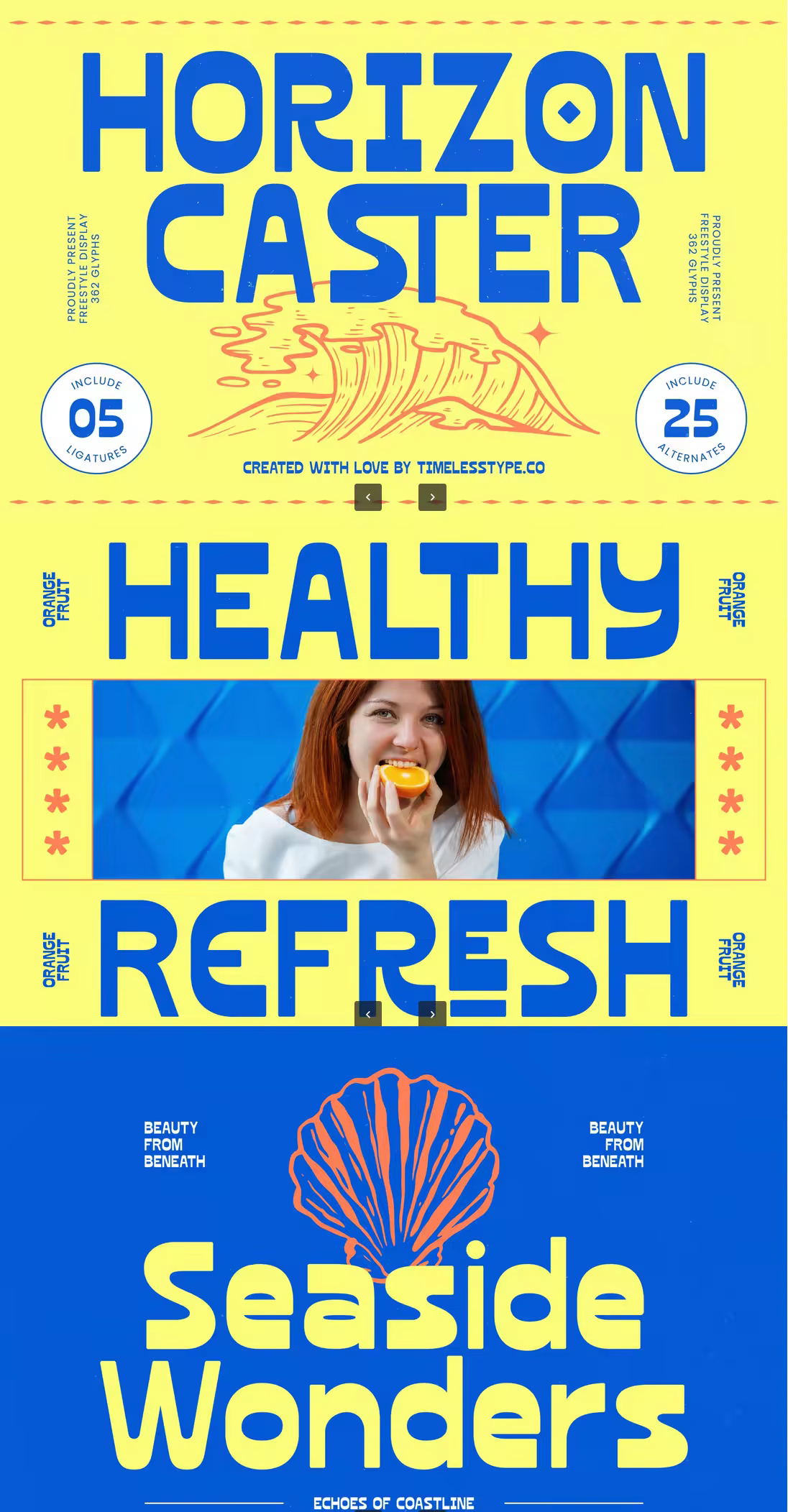
Horizon Caster is a bold freestyle display font inspired by coastal energy, retro signage, and dynamic wave-flow shapes. Its chunky, rounded letterforms deliver a fun, punchy personality—perfect for posters, beach branding, cafe menus, surfing merchandise, kids’ illustrations, summer events, playful packaging, and bold modern headlines.
Designed with 5 ligatures and 25 alternates, this font gives you expressive customization options. Whether you're designing a vibrant poster, a retro-inspired graphic, or a standout logo, Horizon Caster adds a bright, lively character to any layout.